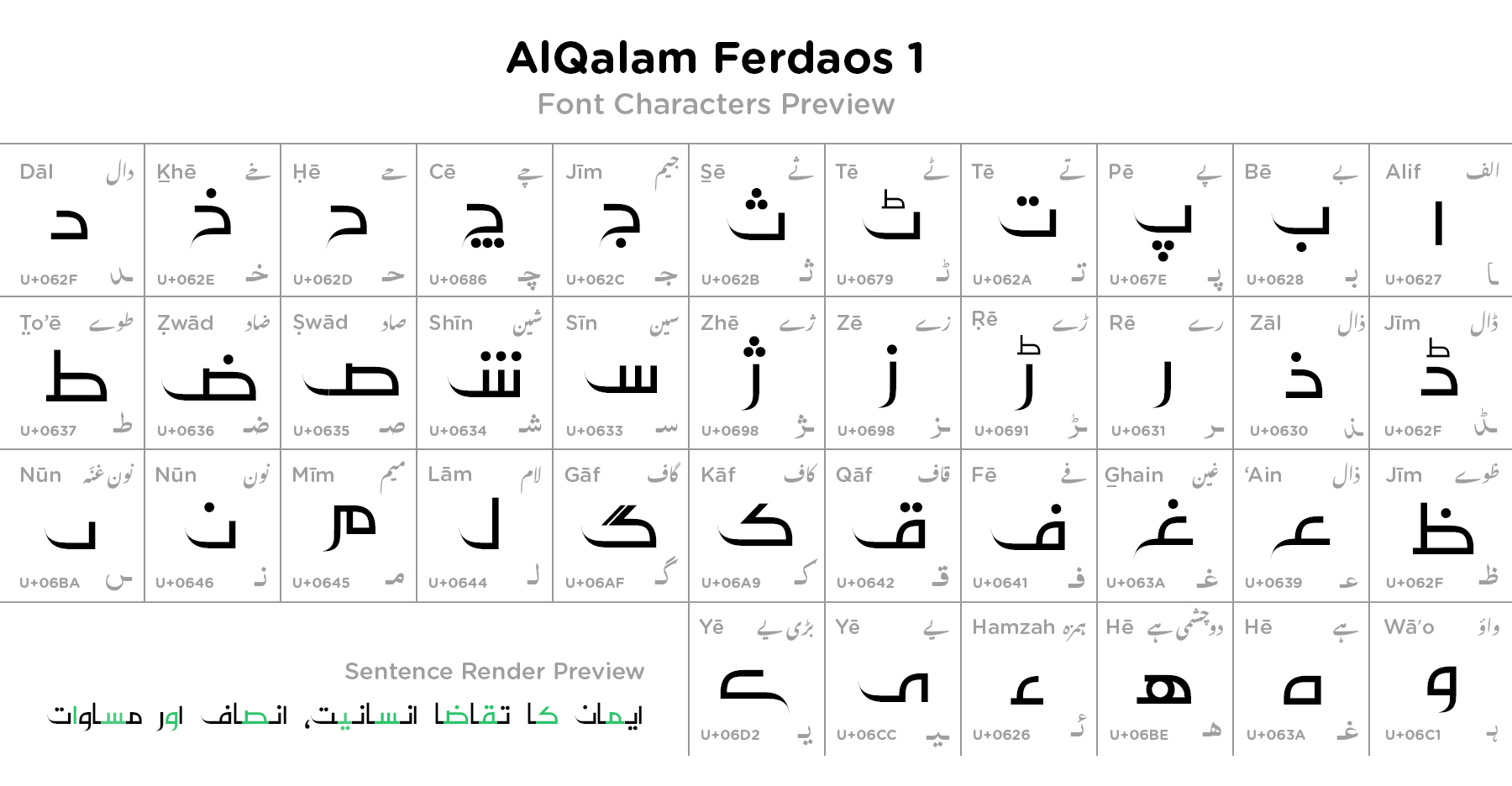
AlQalam Ferdaos 1 is a TrueType Urdu typeface based on the Naksh script with the minor influence of Nastaliq, as evident in its flowing terminals. It is a decorative and modern Urdu font that is perfect for writing literary works such as poetry and prose, books and formatting documents, and more. AlQalam Ferdaos is a highly adaptable font that may be used for many purposes like attention-grabbing brochures, posters, branding, YouTube thumbnails, etc. It has a glyph count of 335 and a character set of 219 letters with support for Latin, Urdu, and Arabic. It is designed by Pakistani typographers and designers Muhammad Ishtiaq Ali Attari and Attari Qadri and was released on 30 January, 2016 for use. It’s a thick font with varying thickness offering a visually appealing and impactful look and feel. Although, it is based on the Arabic script Naskh, it incorporates extras like Urdu diacritics and a sharper yet flowing look. The design is cursive with delicate strokes and soft curves. The letters are uncluttered and generously spaced with the beautiful serif at the end of the gentle curly strokes. Thus, making this font perfect for your artistic works.